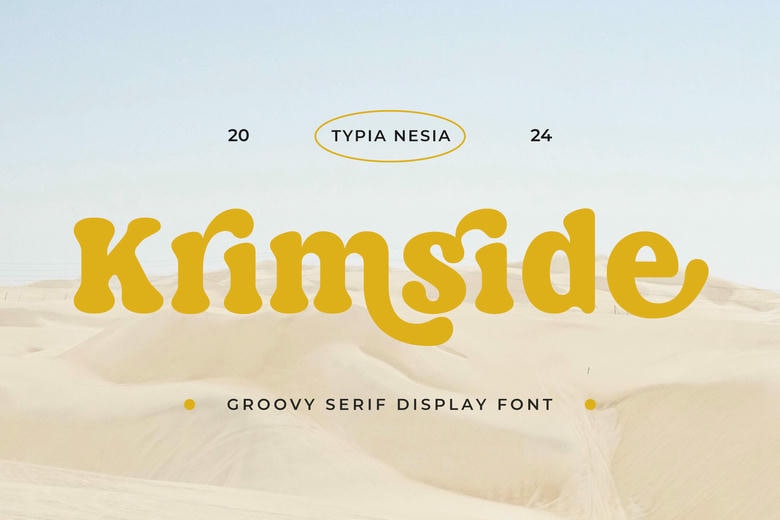
Krimside Font
Krimside is described as being a Groovy Serif Font that gives a good mix of the old school, and the new age. It has playful curves and has a great personality for such projects as branding, posters, albums, retro looking designs, social media images, packaging design, invitations, children stationery, game designs and any other design that might need a funky, distinctive touch.
Krimside Serif Font